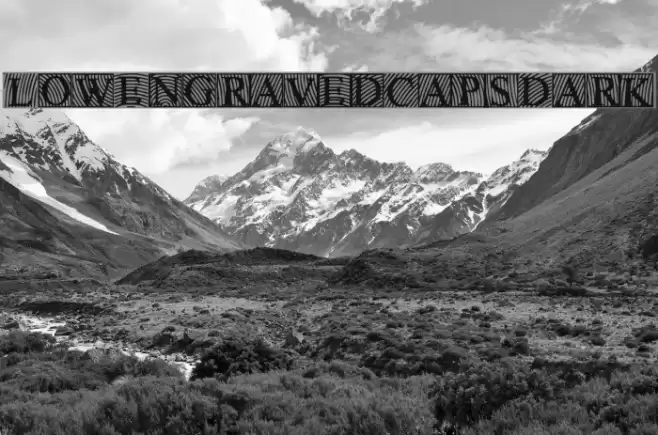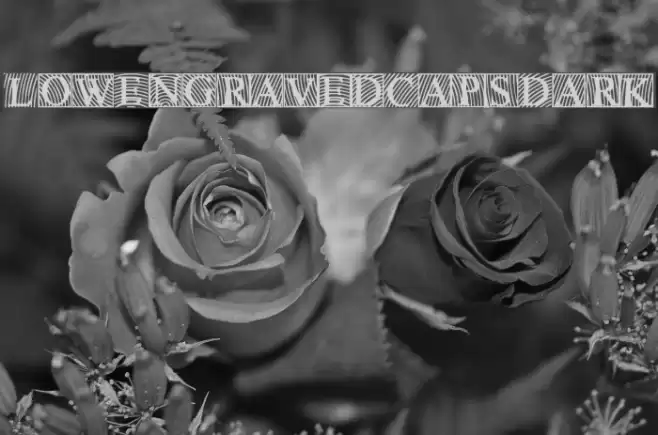
LowEngravedCapsDark Font
LowEngravedCapsDark Description
This font features a unique engraved style with a dark, intricate pattern that creates a sense of depth and texture. The uppercase letters are bold and striking, with a decorative flair that makes them stand out. The design incorporates a series of parallel lines within each character, giving it a sophisticated and artistic appearance. The font is highly stylized, making it suitable for projects that require a distinctive and eye-catching typeface. Its intricate detailing suggests a sense of elegance and refinement, ideal for creative and artistic applications.
| Use Case | Logos, Headlines, Posters |
| Proposed Projects | Ideal for use in branding, logos, posters, and artistic projects where a unique and decorative typeface is desired. |